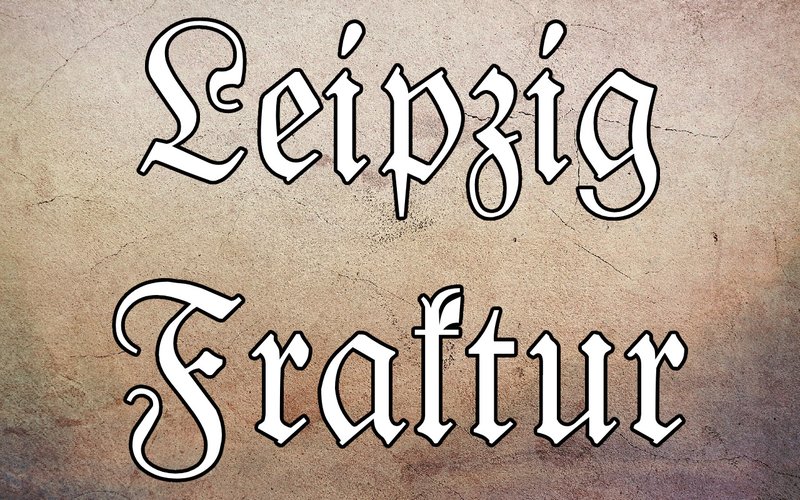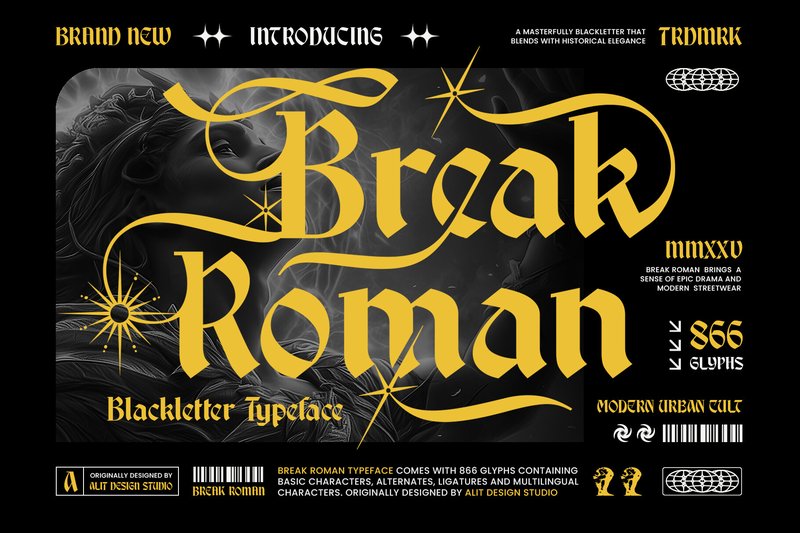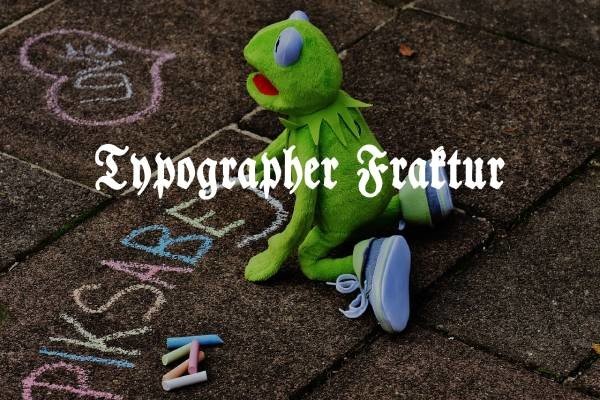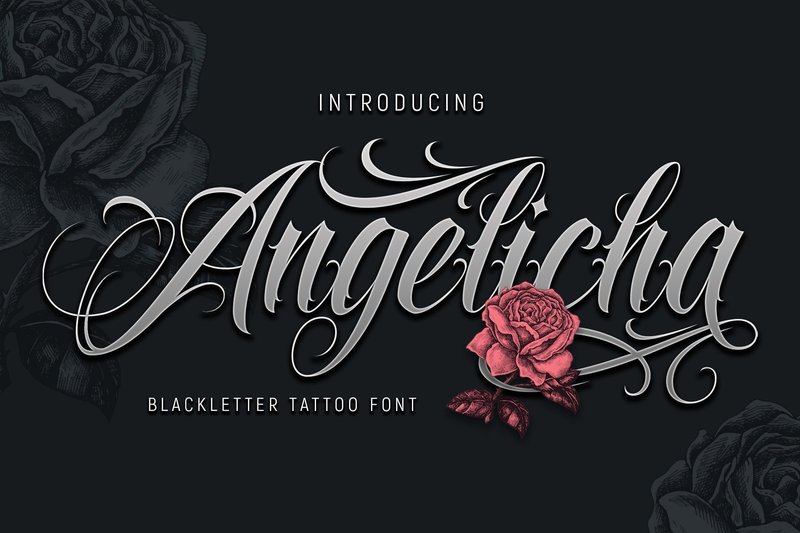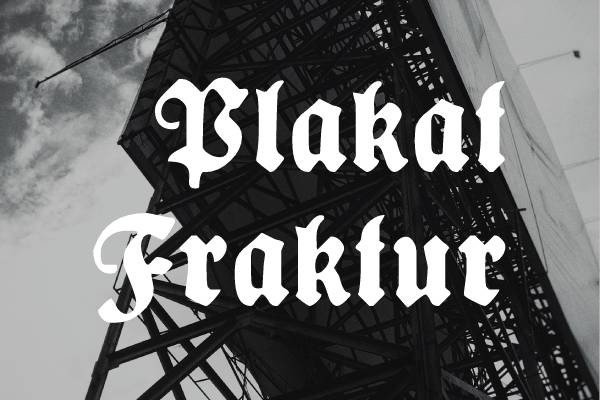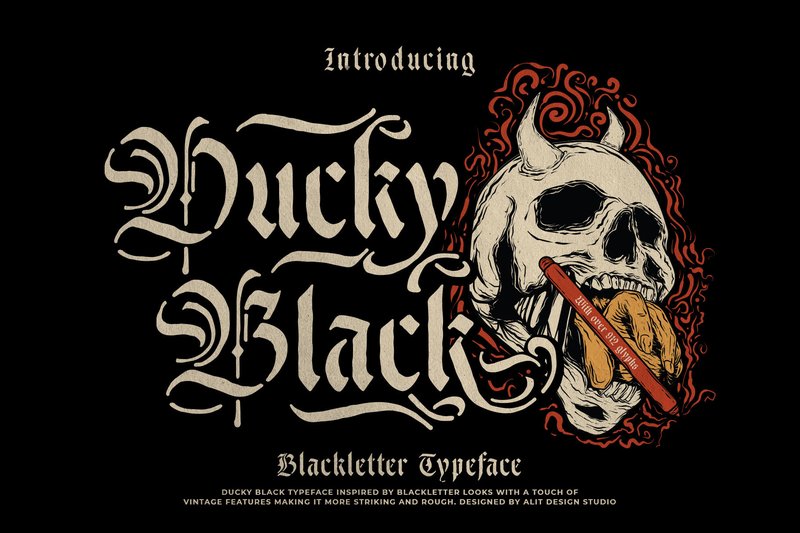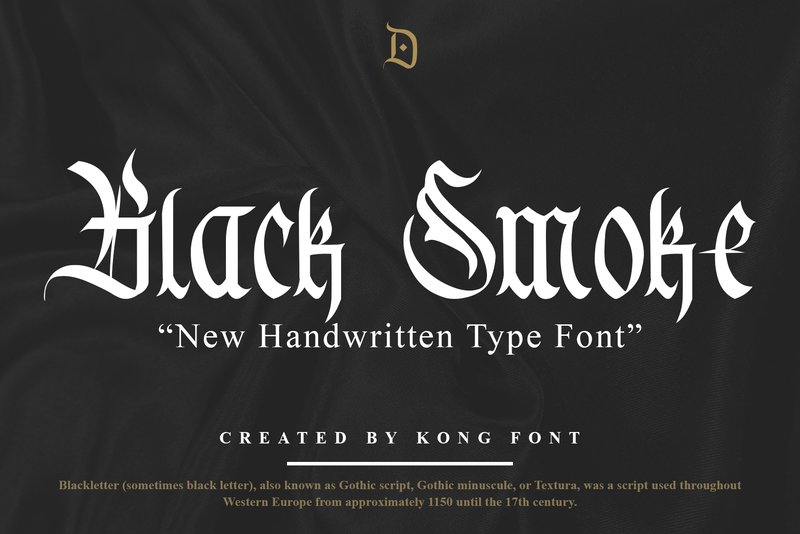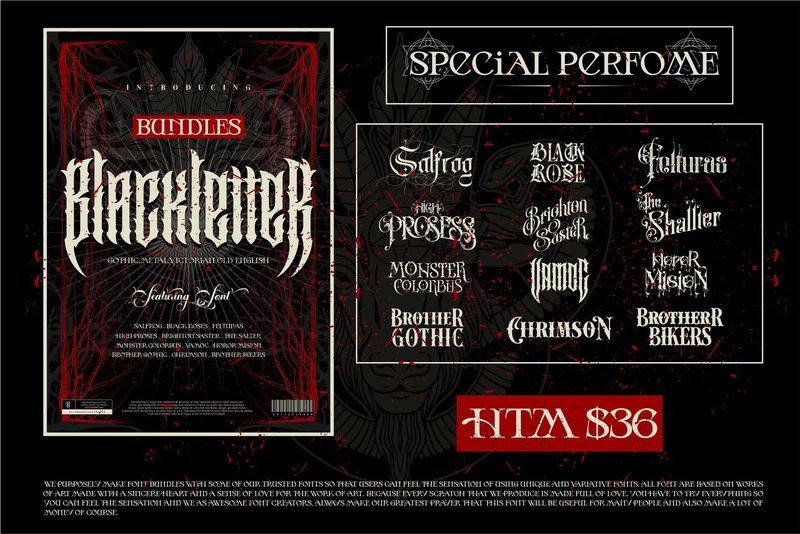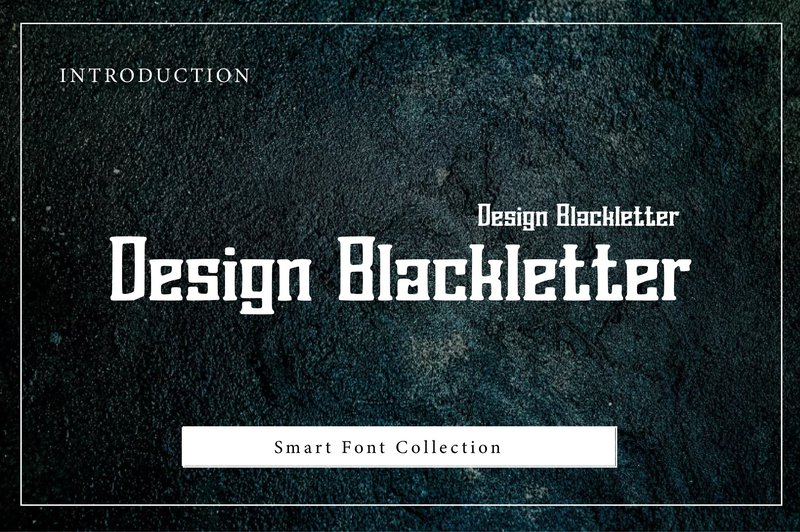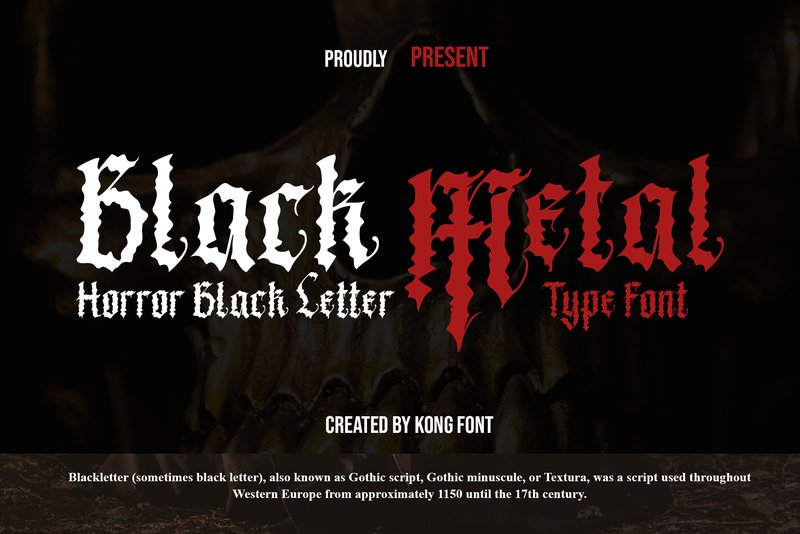
Once confined to historical manuscripts, Blackletter fonts are making a dramatic comeback in the 2026 design scene. Designers and DIY crafters alike are embracing their bold, intricate forms to add historical weight and a touch of drama to modern projects. From edgy streetwear branding and album art to elegant wedding stationery, the gothic aesthetic is proving incredibly versatile. This resurgence confirms that what’s old is new again, bringing a sophisticated edge to current trends. We’ve curated a list of the 40 most popular and impactful Blackletter fonts that are defining this powerful movement right now.
1. Leipzig Fraktur (by Freebies)
Leipzig Fraktur (by Freebies) feels less like a digital typeface and more like the deliberate, inked strokes of a master calligrapher’s pen. Designed by Peter Wiegel, this font brings a refreshing clarity to the historically dense Fraktur style. Its characters are meticulously balanced, avoiding the overly ornate feel of some blackletter fonts while retaining an authentic, handcrafted soul. It strikes a rare equilibrium, making it a timeless choice that feels both historically significant and perfectly suited for current design trends that call for bold, typographic statements.
- Classic Fraktur construction with a clean, modern finish
- Beautifully balanced and spaced characters for improved readability
- A strong, assertive presence suitable for display text
- Versatile aesthetic that complements both vintage and contemporary projects
- Logos and branding for breweries, tattoo parlors, and artisan brands
- Edgy apparel, merchandise, and album art
- Striking headlines and titles in editorial and poster design
- Themed invitations that require a touch of historical elegance
2. Hohenzollern (by Freebies)
Hohenzollern (by Freebies) is a commanding and unapologetically bold take on the classic blackletter style. Designed by Peter Wiegel, this font brings a heavyweight presence to any layout, blending traditional Gothic forms with a clean, contemporary edge. Its thick, confident strokes create an immediate sense of power and impact, making it a standout choice for projects that demand a strong typographic identity without sacrificing clarity.
- Thick, heavyweight letterforms with a strong visual presence.
- A modern interpretation of traditional blackletter typography.
- Full PUA encoding for straightforward access to all alternate glyphs and swashes.
- Crisp, clean lines that maintain legibility even in bold applications.
- Headlines and titles for posters, apparel, and branding projects.
- Logotypes for tattoo parlors, streetwear brands, or metal bands.
- Album covers and merchandise that require a powerful, edgy aesthetic.
- Editorial design and packaging seeking a touch of historic grandeur with a modern twist.
3. Break Roman (by Alit Design)
Break Roman (by Alit Design) is the product of a torrid love affair between two worlds—the ancient, brooding soul of gothic blackletter and the sharp, sophisticated intellect of a modern serif. Alit Design has orchestrated a masterful union where historical gravitas doesn’t just meet contemporary edge; it elopes with it. The result is a typeface brimming with rebellious passion, where each character carries the dramatic weight of a medieval saga while speaking the clean, assertive language of today’s most daring brands. This isn’t just a font; it’s a statement piece, a typographic rebellion that proves that even the most classic traditions can find new, thrilling life in the modern era.
- Hybrid Blackletter-Serif Construction: A seamless fusion of gothic structure and modern serif legibility.
- Stylistically Aggressive with Dramatic Flair: Sharp angles and vertical stress create a bold, rebellious, and epic mood.
- Intricate Swashes and Flourishes: Elegant, decorative alternates that add a touch of bespoke craftsmanship to any design.
- Luxury Branding and High-Fashion Editorials: Adds a sophisticated yet edgy voice to magazine layouts and high-end product campaigns.
- Streetwear Apparel and Urban Culture: Perfect for bold graphic tees, logos, and branding that needs an unapologetic attitude.
- Epic Media Titling: Brings a cinematic and historical weight to movie posters, album art, and book covers.
- Distinctive Logotypes: Creates unforgettable and powerful logos that blend tradition with a fresh, modern spirit.
4. Typographer Fraktur (by Freebies)
Typographer Fraktur (by Freebies) evokes the solemn dedication of an ancient scribe, meticulously crafting each letter with ink and quill. This font brings a powerful sense of history and gravitas to any digital canvas, commanding attention with its classic structure and sharp, confident lines. Its authentic character feels both timeless and undeniably current, making it a go-to for designs that require a blend of historical weight and modern clarity. It’s a typeface that doesn’t just communicate words; it imparts a feeling of enduring craftsmanship and bold identity.
- Classic Fraktur letterforms with intricate, high-contrast details.
- Full PUA encoding ensures easy access to all alternate glyphs and swashes.
- A comprehensive character set designed for decorative and display purposes.
- Crisp vector construction that maintains sharpness at any scale.
- Logos and branding for breweries, distilleries, and artisanal businesses.